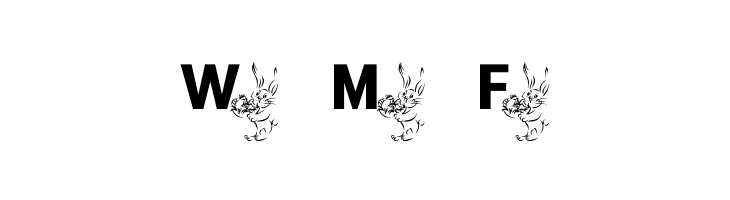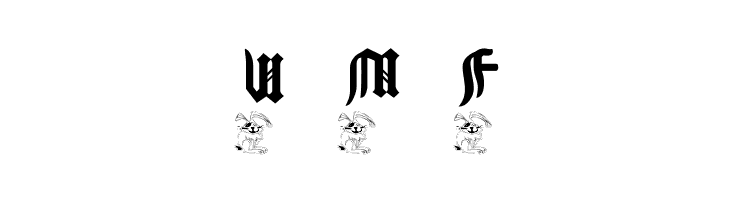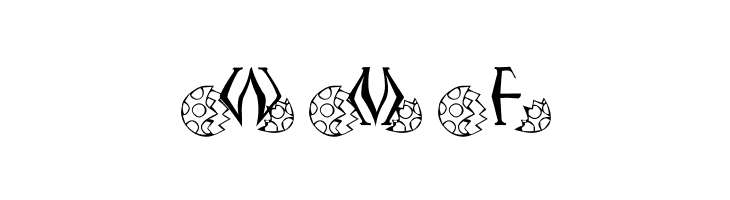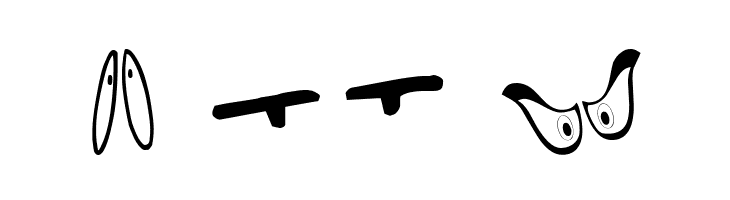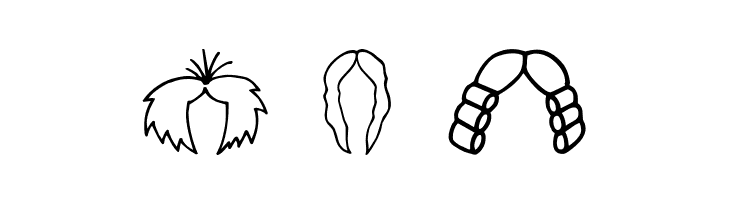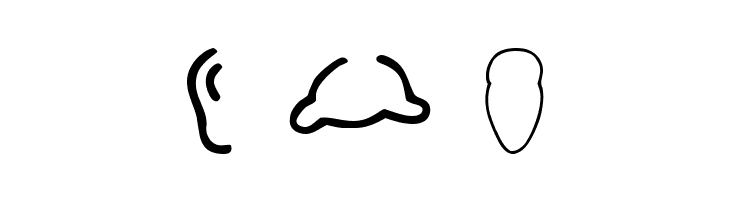
A modern, geometric sans-serif font with balanced strokes and clear readability.
A whimsical font with Easter bunny illustrations accompanying each character.
A bold, intricate blackletter font with a medieval aesthetic.
Illustrative Easter-themed decorative font with detailed festive icons.
A whimsical, decorative font with floral patterns and unique letter shapes.
A decorative font made up of diverse cartoon eye illustrations.
A decorative font with apparel and accessory icons.
A quirky dingbat font of hair and facial hair illustrations.
A decorative font made of hand-drawn facial feature illustrations.